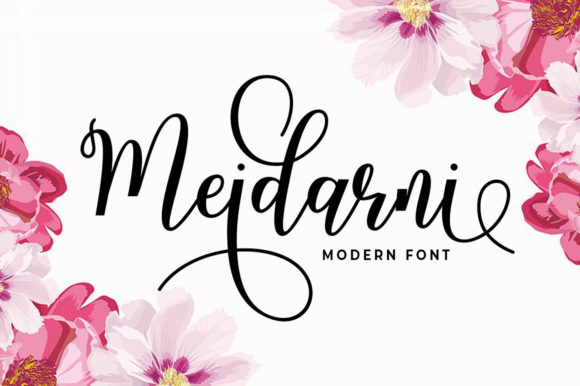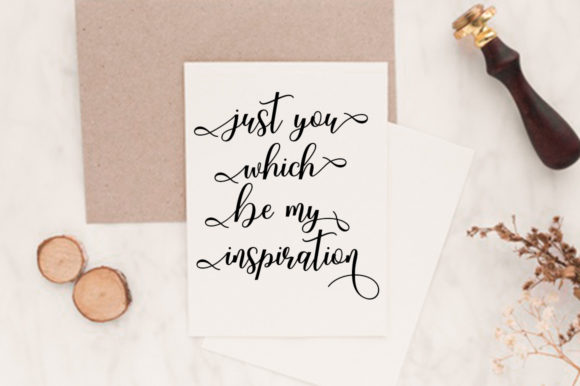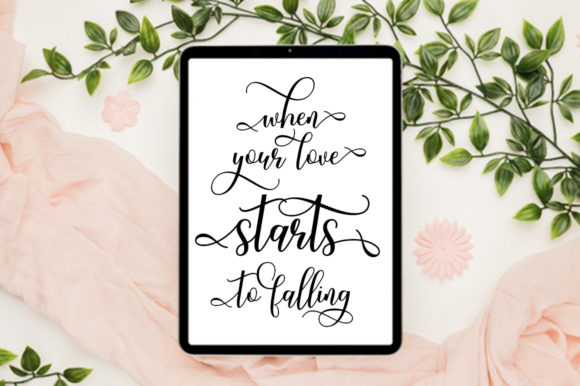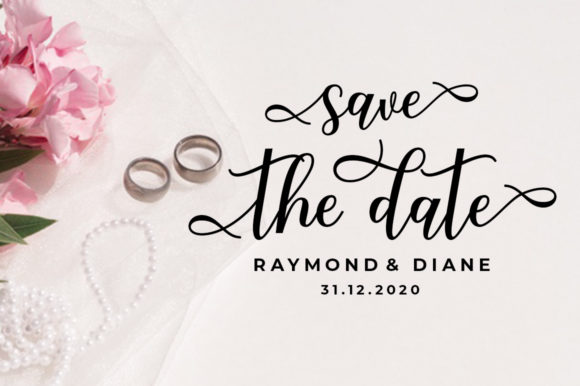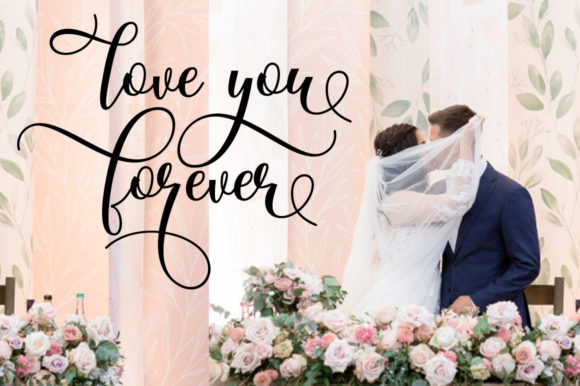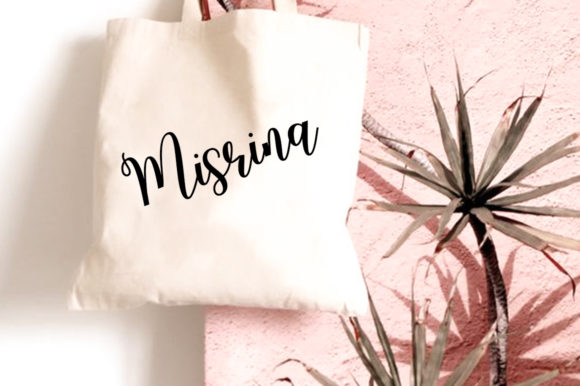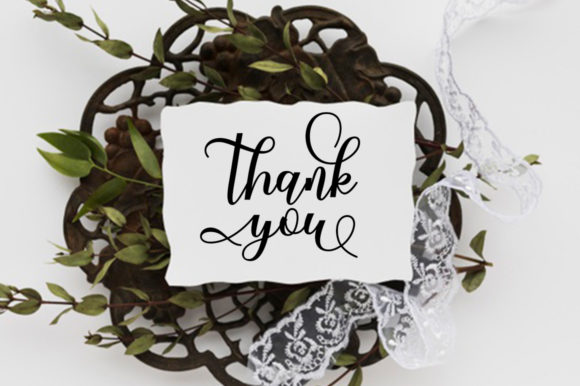
Meidarni Font
About Meidarni Font
Meidarni is a beautiful handwritten font. It features a wealth of special features including alternate glyphs and ligatures. Fall in love with its authentic feel and use it to create gorgeous wedding invitations, beautiful stationary art, eye-catching social media posts, and cute greeting cards.